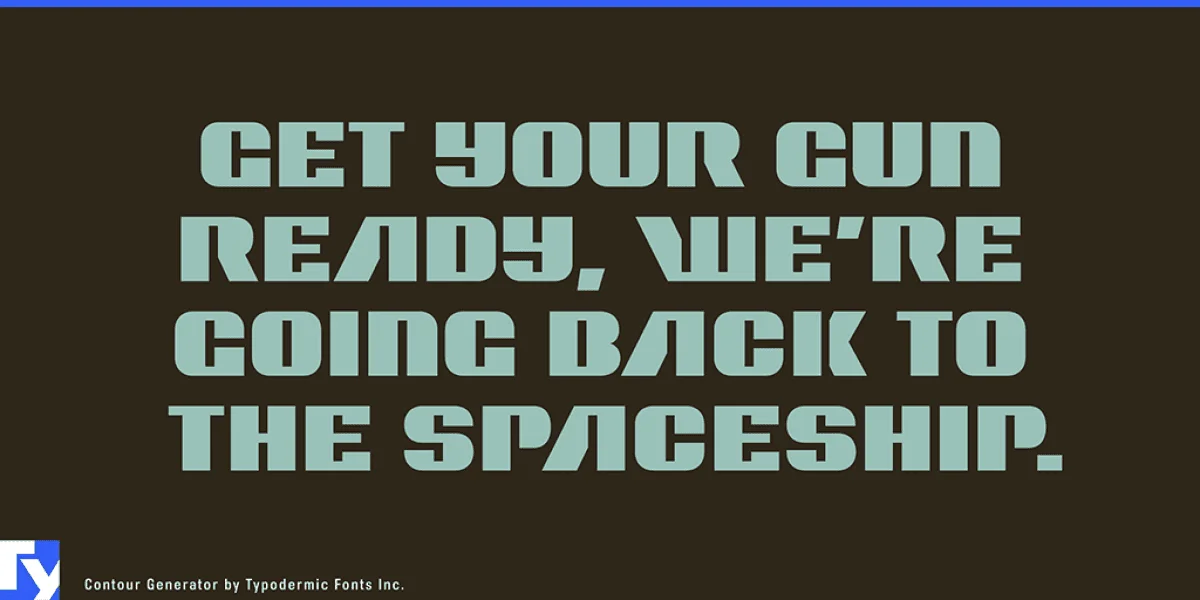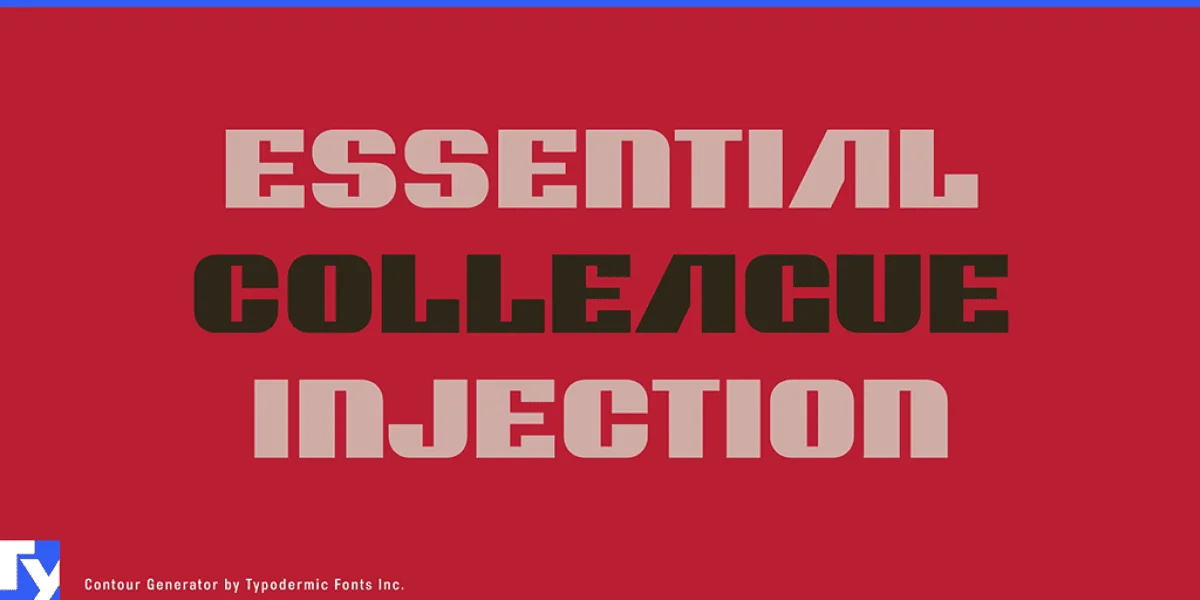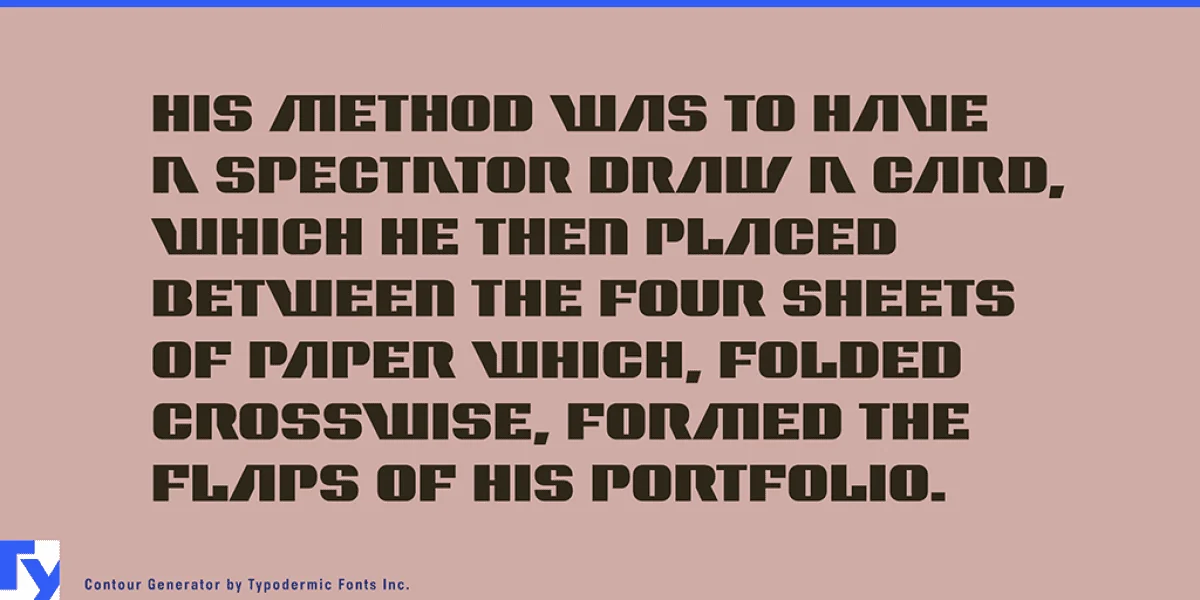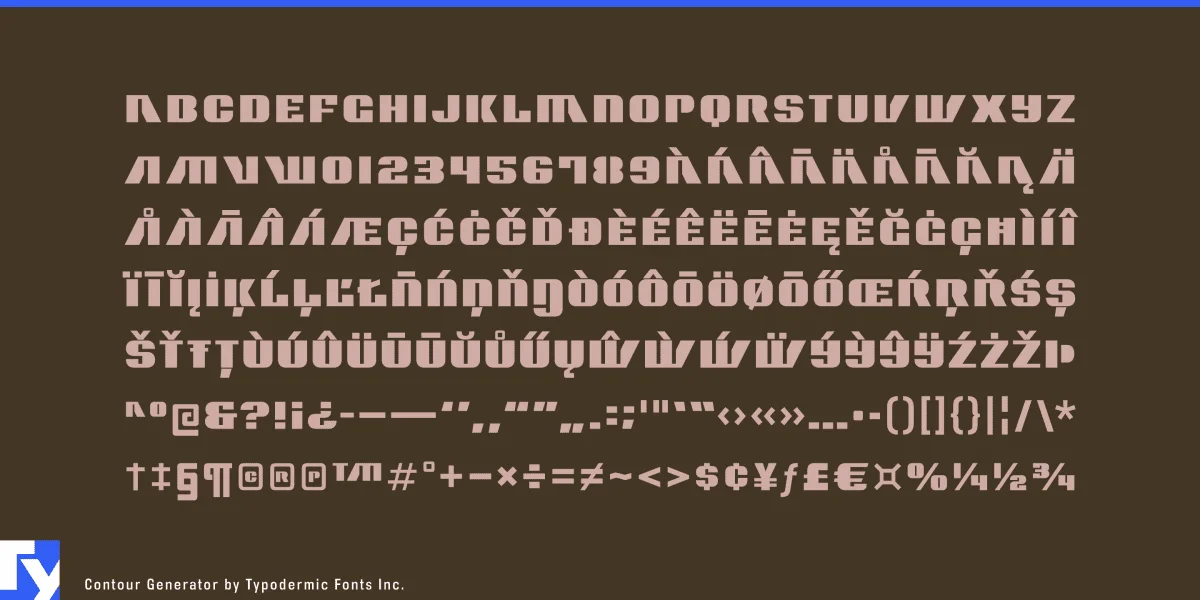
Contour Generator is a retro techno typeface inspired by the iconic RCA logo. That unconventional logotype had to inspire the creation of a typeface. Its quirky, innovative letterforms are certainly alluring. The original design merely had three letters, but it inspired an entire alphabet and more. Most Latin-based European writing systems are supported, including the following languages. Afaan Oromo, Afar, Afrikaans, Albanian, Alsatian, Aromanian, Aymara, Bashkir (Latin), Basque, Belarusian (Latin), Bemba, Bikol, Bosnian, Breton, Cape Verdean, Creole, Catalan, Cebuano, Chamorro, Chavacano, Chichewa, Crimean Tatar (Latin), Croatian, Czech, Danish, Dawan, Dholuo, Dutch, English, Estonian, Faroese, Fijian, Filipino, Finnish, French, Frisian, Friulian, Gagauz (Latin), Galician, Ganda, Genoese, German, Greenlandic, Guadeloupean Creole, Haitian Creole, Hawaiian, Hiligaynon, Hungarian, Icelandic, Ilocano, Indonesian, Irish, Italian, Jamaican, Kaqchikel, Karakalpak (Latin), Kashubian, Kikongo, Kinyarwanda, Kirundi, Kurdish (Latin), Latvian, Lithuanian, Lombard, Low Saxon, Luxembourgish, Maasai, Makhuwa, Malay, Maltese, Māori, Moldovan, Montenegrin, Ndebele, Neapolitan, Norwegian, Novial, Occitan, Ossetian (Latin), Papiamento, Piedmontese, Polish, Portuguese, Quechua, Rarotongan, Romanian, Romansh, Sami, Sango, Saramaccan, Sardinian, Scottish Gaelic, Serbian (Latin), Shona, Sicilian, Silesian, Slovak, Slovenian, Somali, Sorbian, Sotho, Spanish, Swahili, Swazi, Swedish, Tagalog, Tahitian, Tetum, Tongan, Tshiluba, Tsonga, Tswana, Tumbuka, Turkish, Turkmen (Latin), Tuvaluan, Uzbek (Latin), Venetian, Vepsian, Võro, Walloon, Waray-Waray, Wayuu, Welsh, Wolof, Xhosa, Yapese, Zapotec Zulu and Zuni.